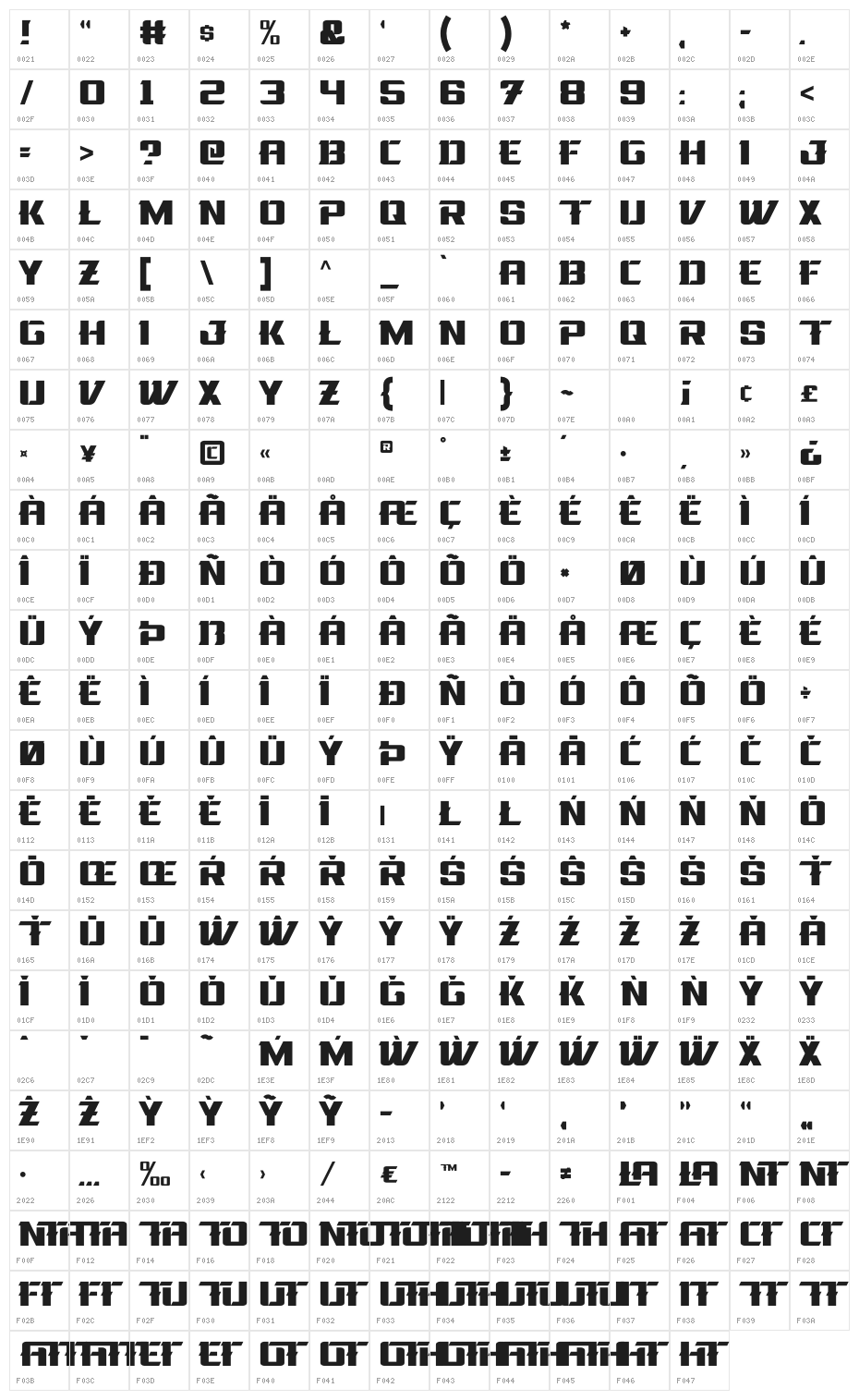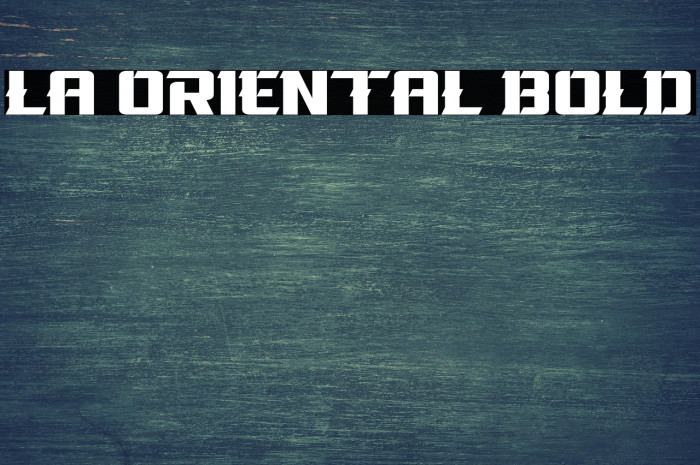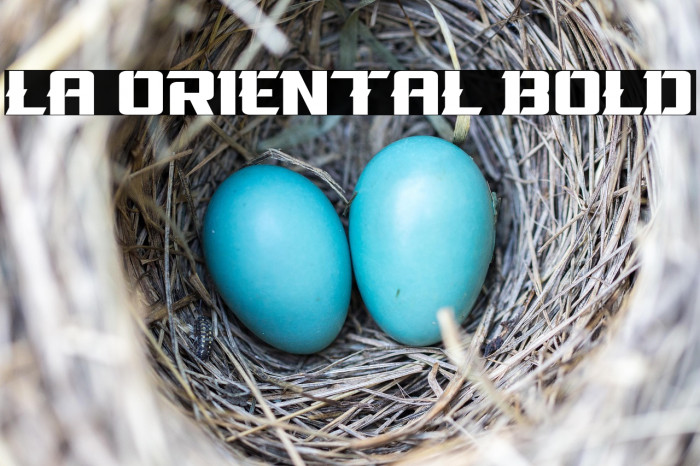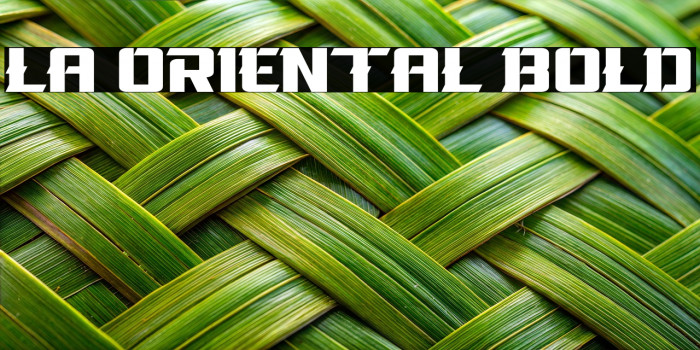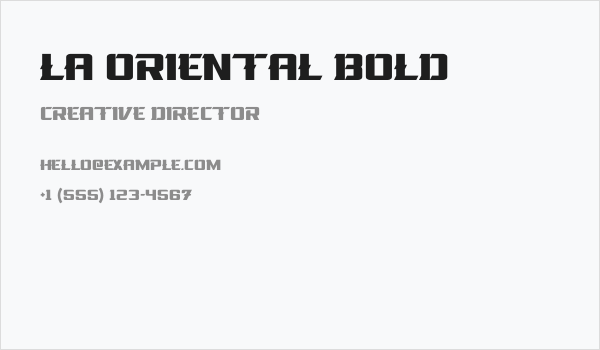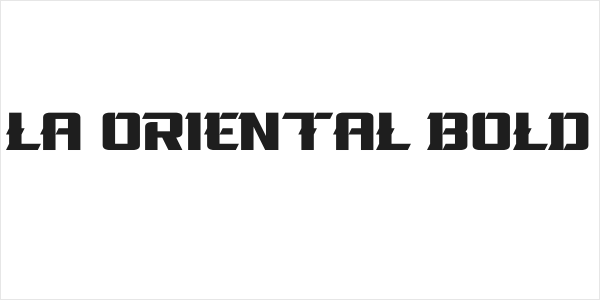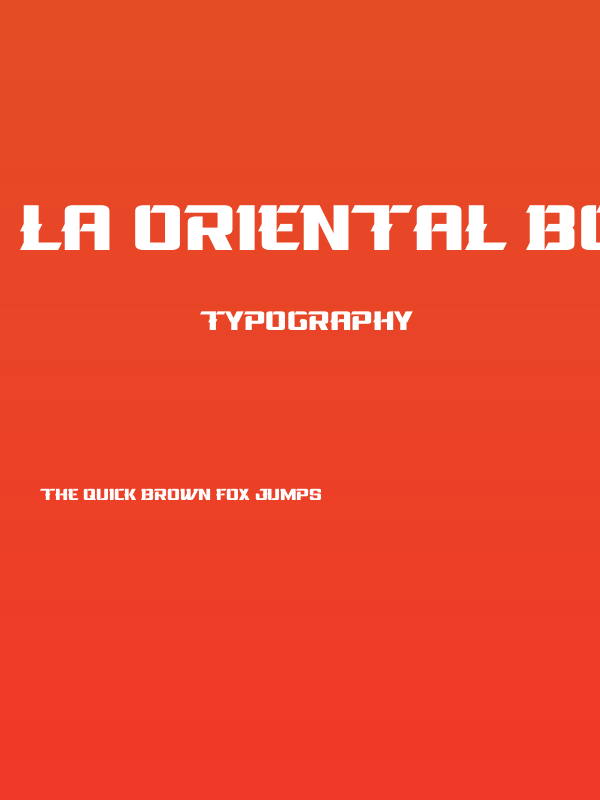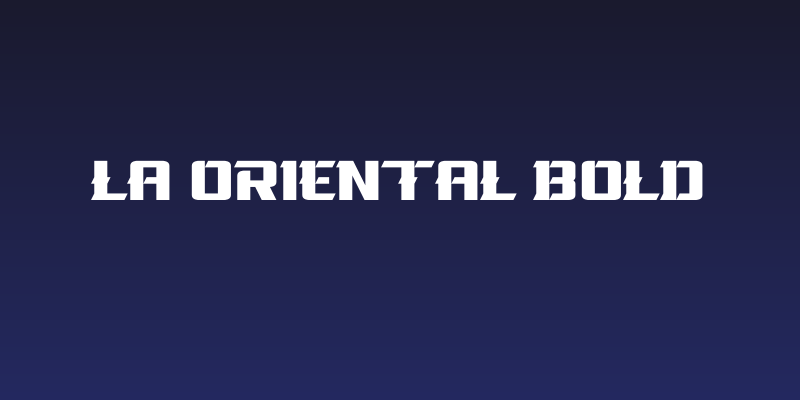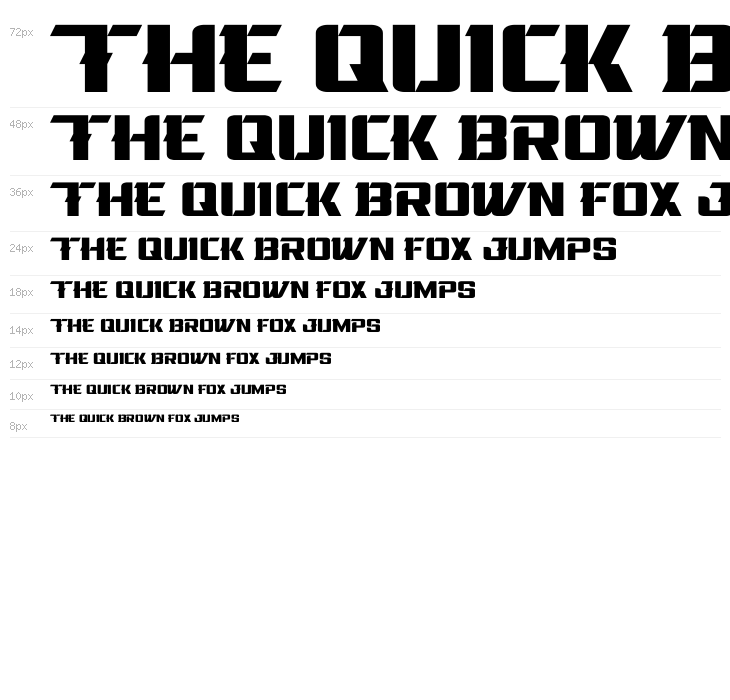
La Oriental Bold Font
La Oriental Bold Description
This font features a bold and striking design with a geometric and angular style. The characters are crafted with sharp edges and a blocky appearance, giving it a strong and impactful presence. The uppercase and lowercase letters maintain a consistent width, contributing to a uniform and cohesive look. The numerals and special characters follow the same design principles, ensuring a seamless integration across different text elements. The font's boldness and unique style make it suitable for attention-grabbing headlines and display purposes.
Proposed ProjectsIdeal for branding, posters, headlines, and any project requiring a bold and modern aesthetic.